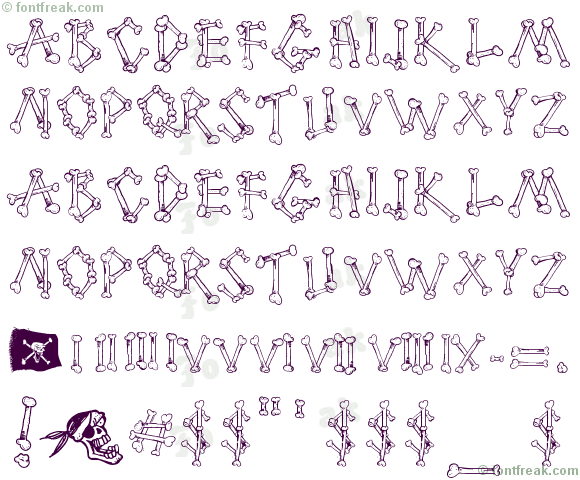
Cartoon Bones
Cartoon Bones is a distinctive decorative typeface designed by Galdino Otten in 2013. This font falls into the category of display typefaces, characterized by its playful and whimsical style that captures the essence of cartoon aesthetics. The visual design features an intriguing skeletal theme, where each letter is crafted to resemble cartoonish bones, making it both eye-catching and fun. The stroke weight is consistent, with a uniformity that enhances its readability while maintaining a light-hearted charm. The spacing between letters is adequately balanced, allowing for easy legibility without compromising the font's playful nature.
This font is ideal for a variety of specific use cases. It can bring a unique flair to Halloween-themed invitations, where its bone motif complements the spooky atmosphere. Additionally, Cartoon Bones can be effectively used in children's book covers, creating an engaging and imaginative title that appeals to young readers. It also works well for merchandise aimed at niche audiences, such as t-shirts for pet lovers or quirky art prints. Furthermore, the font can add a humorous touch to restaurant menus that specialize in themed dining experiences, attracting customers with its whimsical design.
Targeted at graphic designers, small business owners, and content creators, Cartoon Bones is an excellent choice for those looking to inject personality into their projects. Its freeware license makes it accessible for anyone needing a creative edge without budget constraints.
What sets the Cartoon Bones font apart is its unique blend of playfulness and versatility, making it a standout choice for projects that require a touch of creativity and fun. For anyone looking to enhance their designs, a Cartoon Bones font free download is a must-have addition to their font collection.